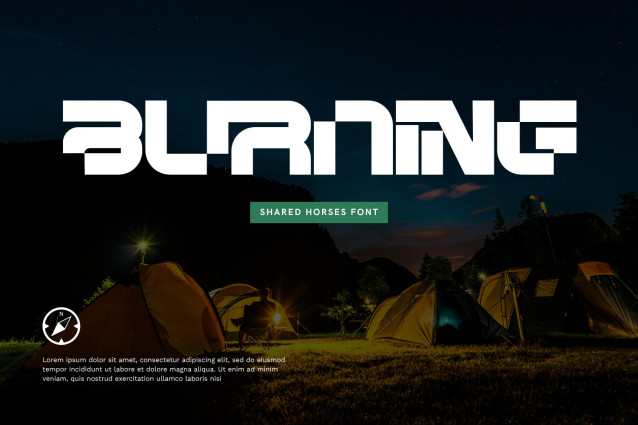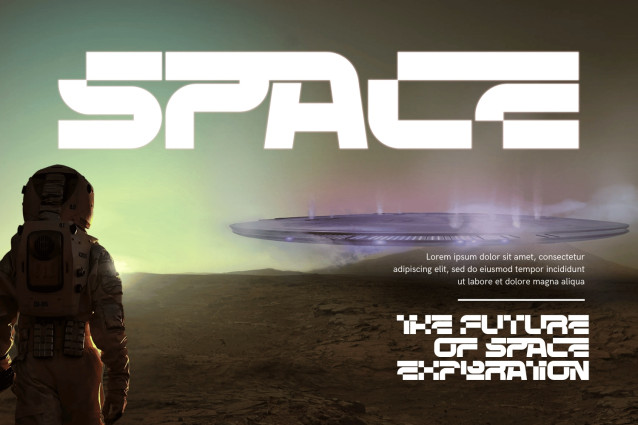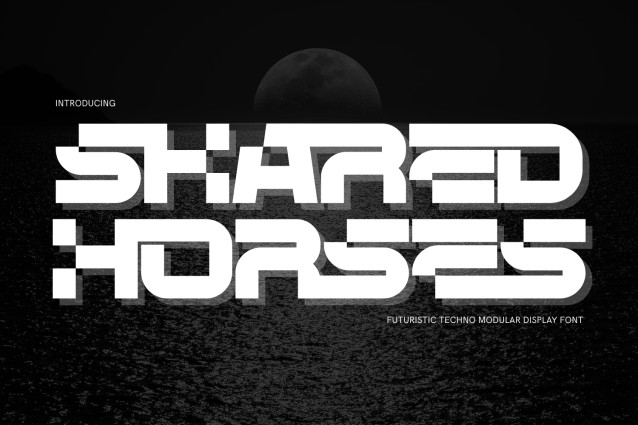
Shared Horses – Cyber Display Font
Shared Horses – Cyber Display Font – Experimental Pixel-Glitch & Heavyweight Cyber Display Font is a bold, high-impact experimental display typeface engineered at the cutting edge of Y2K pixel aesthetics, cybernetic stencil geometry, and heavyweight modular typography. Defined by its ultra-thick blocky proportions, precision pixel-inspired cutouts, and hybrid mix of smooth outer curves and sharp square counters, this font commands instant visual authority with a distinct glitch-tech edge.
Designed to transform headlines into futuristic logotypes, Shared Horses delivers a high-octane digital energy to modern display graphics. Its massive visual weight, combined with broken stencil-like negative space slashes, makes it the definitive typographic choice for electronic music posters, techwear apparel brandings, cyberpunk gaming logos, energy drink packaging, Y2K streetwear graphics, and avant-garde editorial covers.